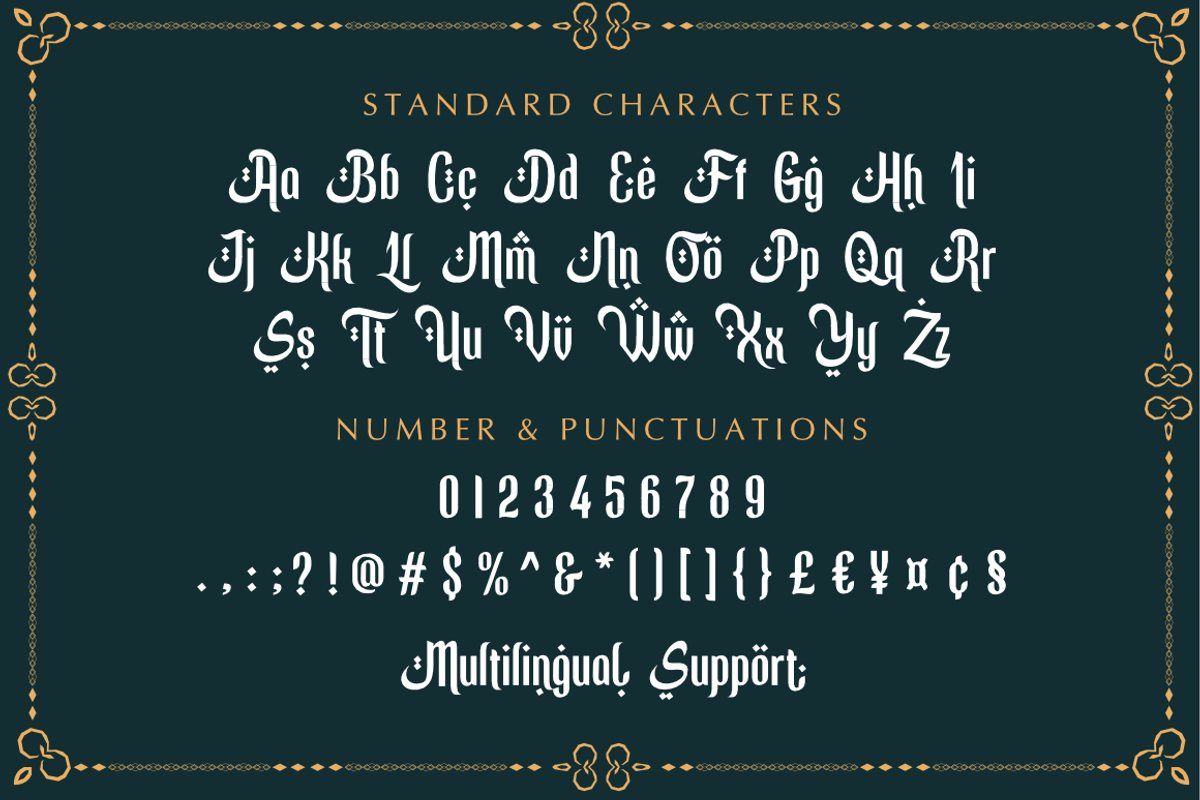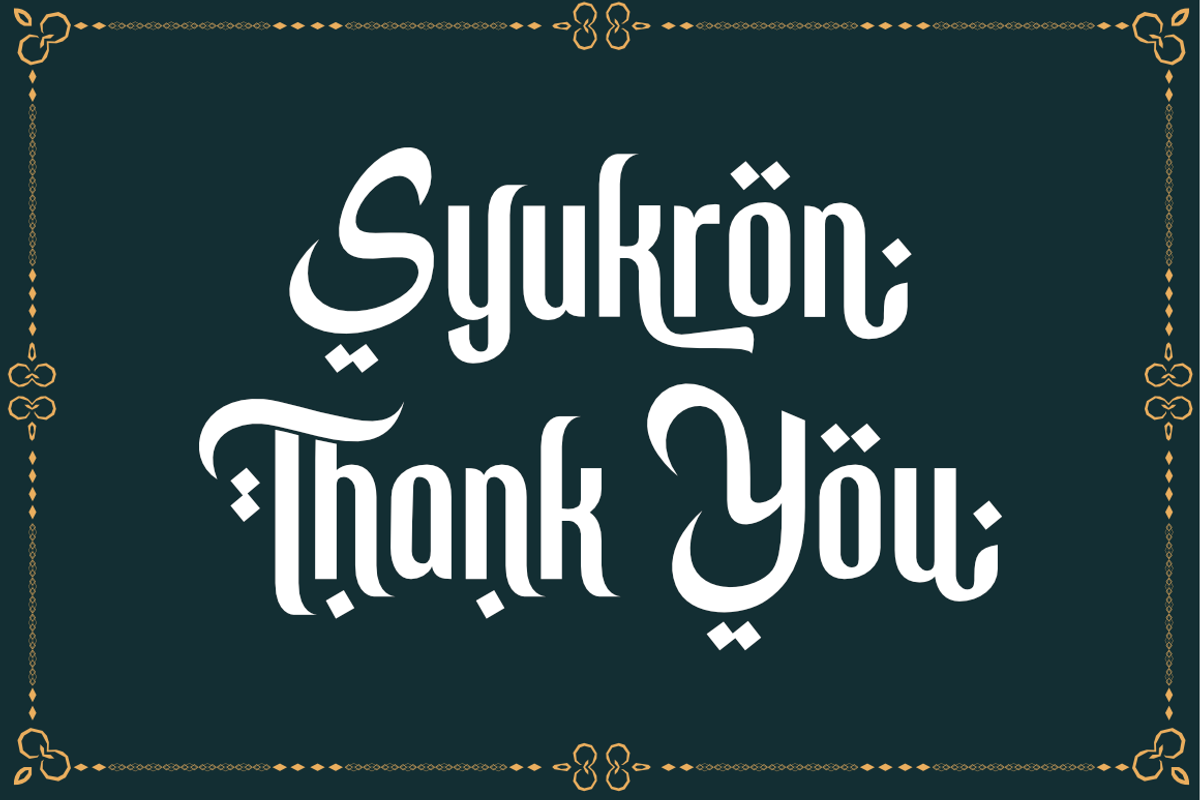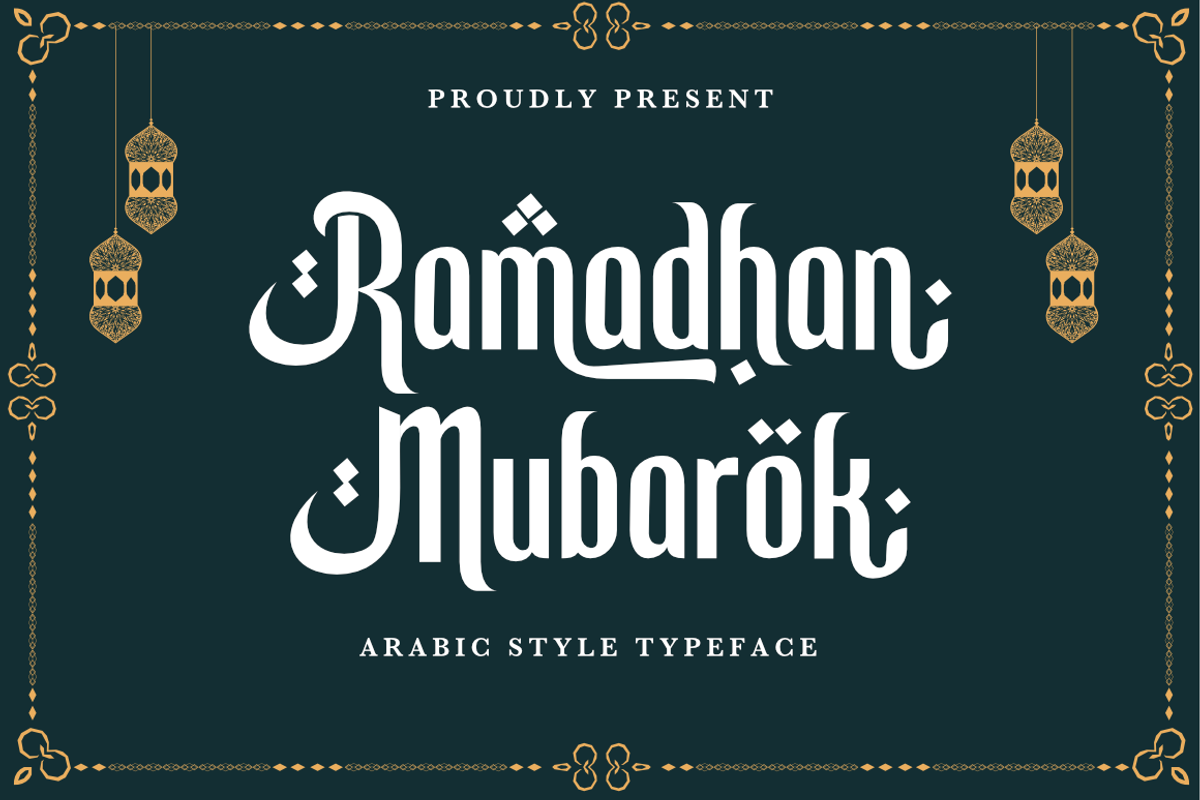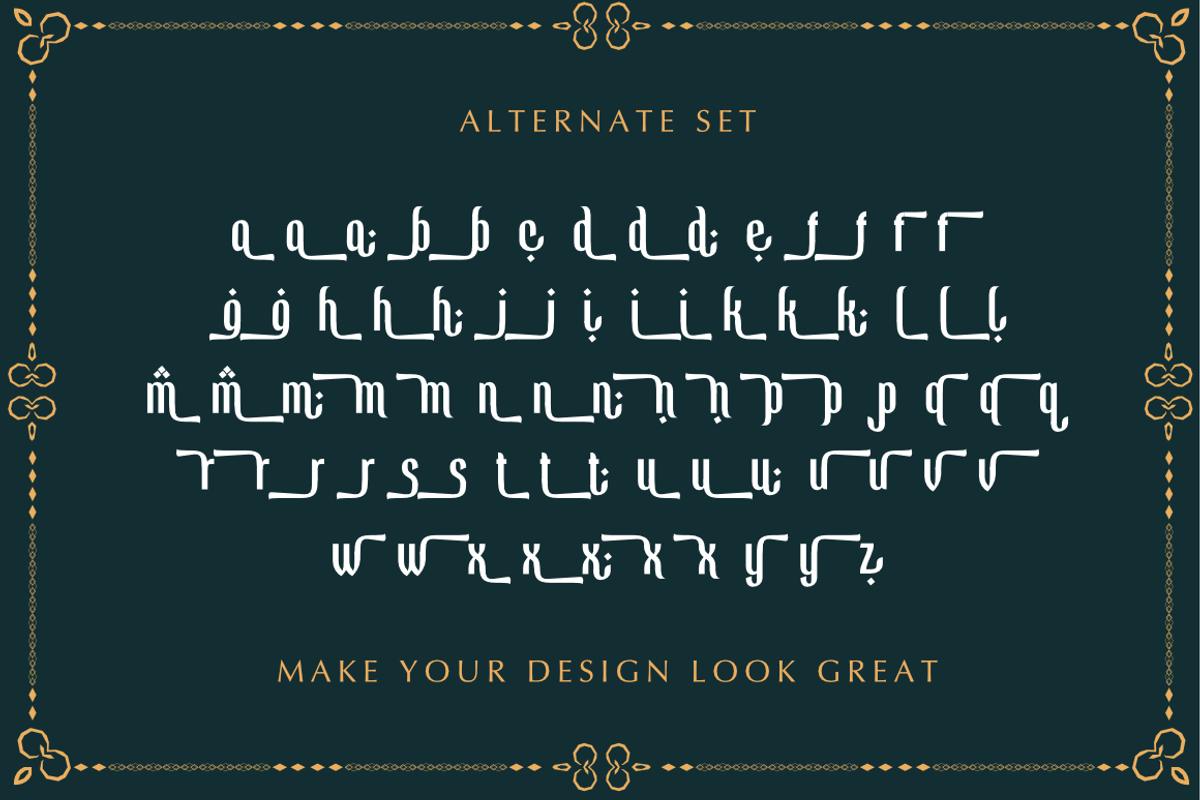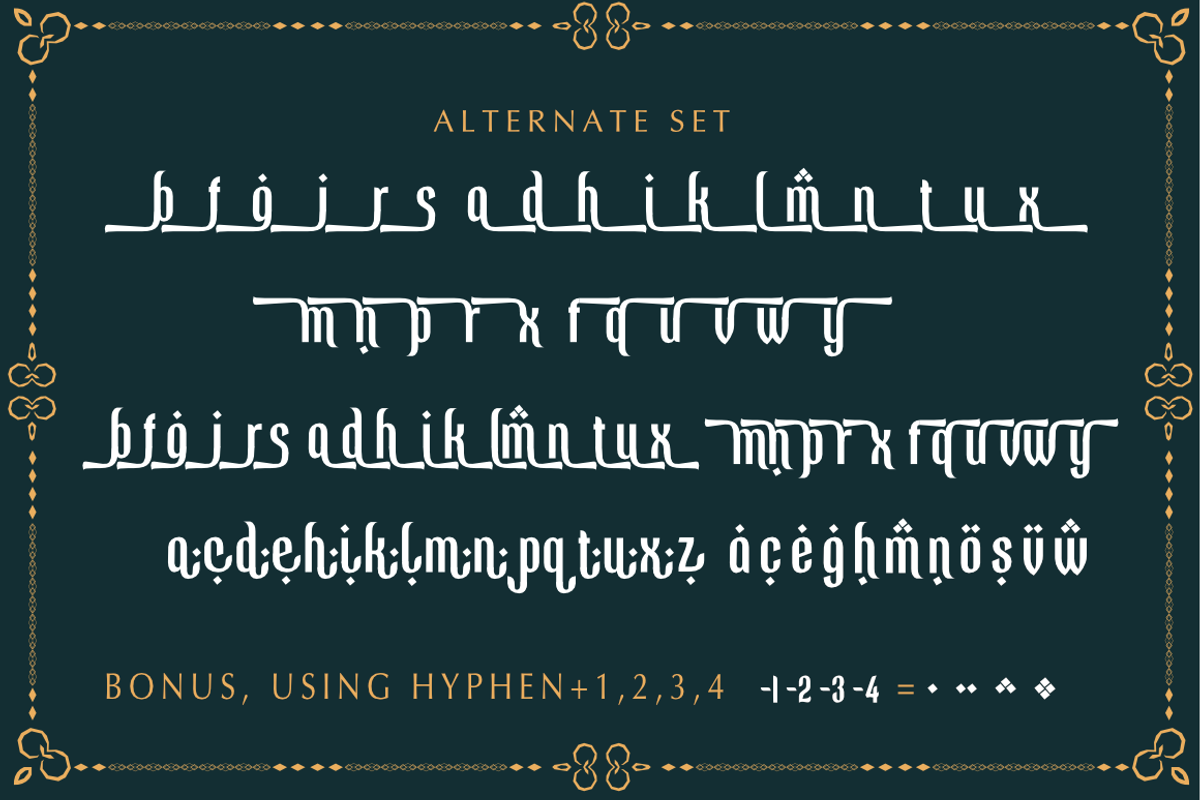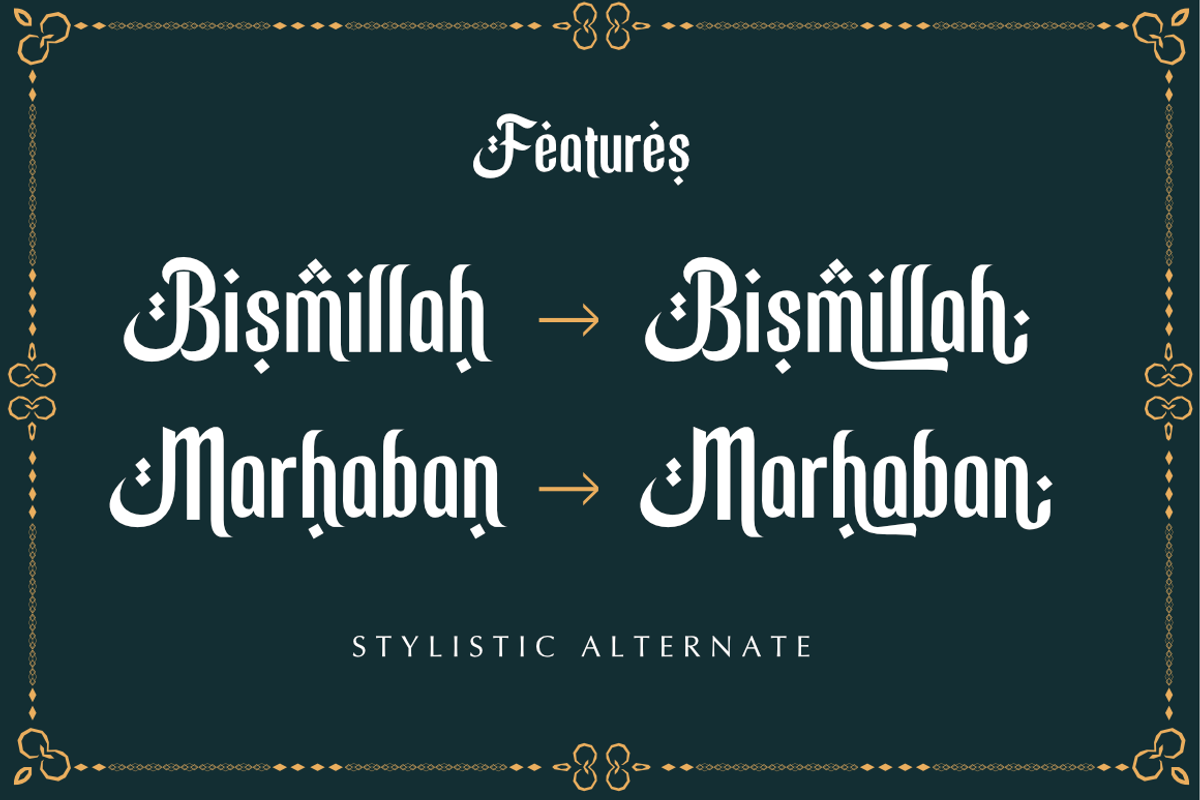
Ramadhan Mubarok
Ramadhan Mubarok is a font with an Islamic theme, this font is suitable for your Islamic design needs,
This font is perfect for products, clothing, t-shirts, food products, beverage products, book covers, magazines, posters, flyers, and other designs.
- 71 Stylistic Alternates
- Support 87 languages